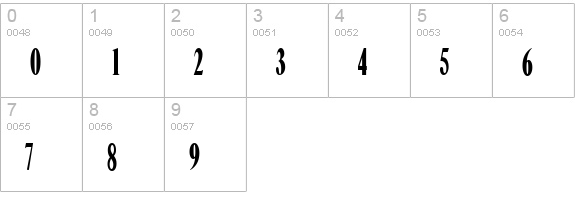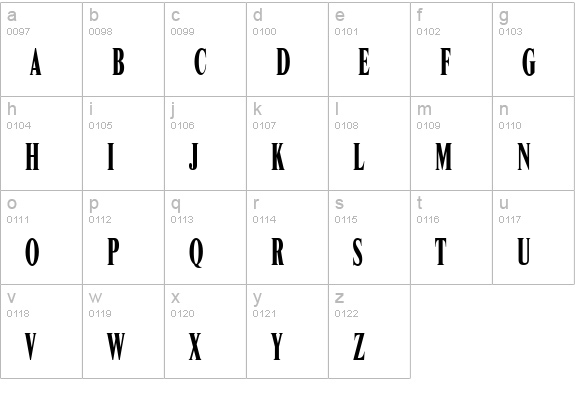
Roman-Compressed-Regular is the standard, neutral, condensed-width variant in the Roman typeface family \xE2\x80\x94 well suited to general body text, paragraphs, and standard typographic work.
Roman-Compressed-Regular is a stylish and versatile font that exudes elegance and sophistication. Its slim and condensed design makes it perfect for creating sleek and modern designs. This font is ideal for use in various projects such as logos, headlines, and branding materials. The clean lines and subtle curves of Roman-Compressed-Regular give it a timeless appeal that will enhance any design. Whether you are working on a print project or a digital design, this font is sure to make a bold statement. Best of all, Roman-Compressed-Regular is available for free download at FontsMarket.com. So, you can easily add this beautiful font to your collection without any cost. Don't miss out on the opportunity to elevate your designs with this stunning typeface. Download Roman-Compressed-Regular today and let your creativity shine!